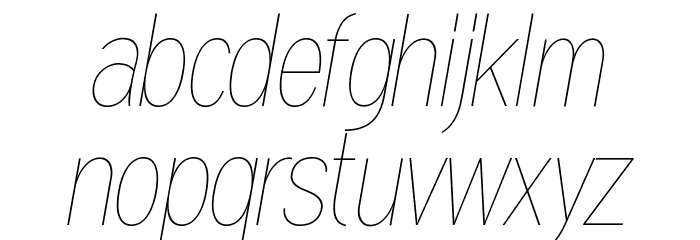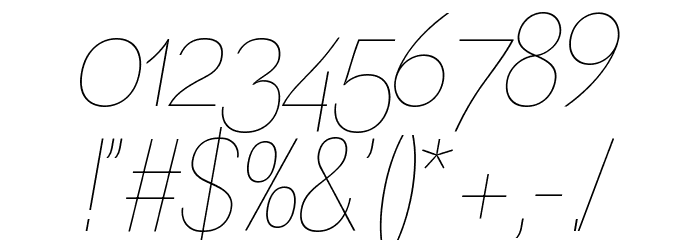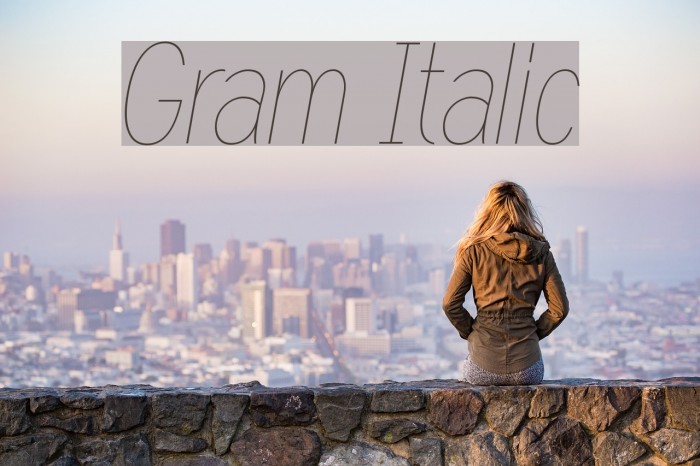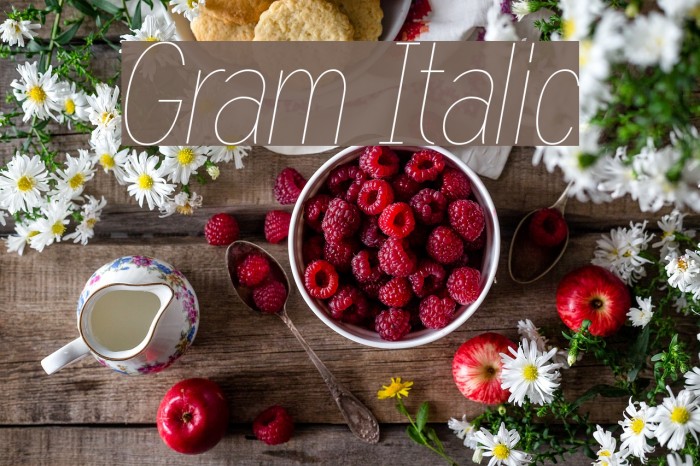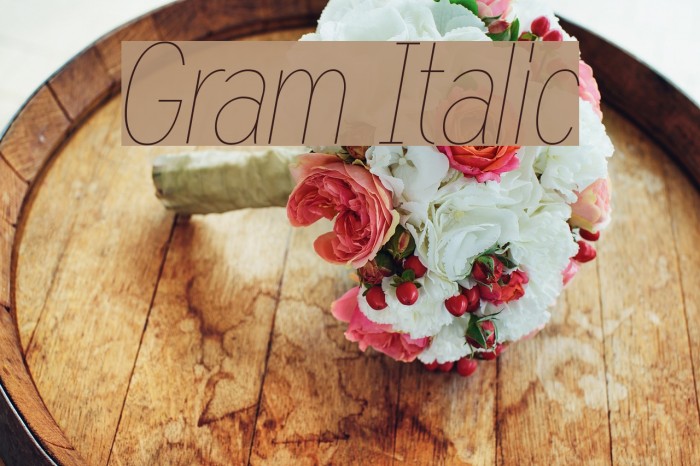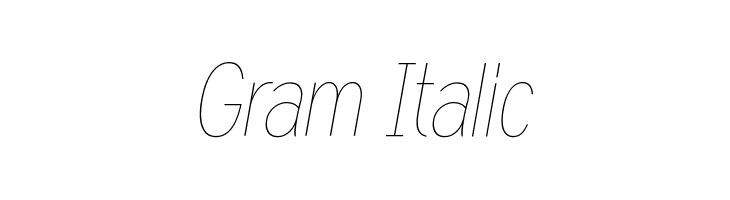
Gram Italic Font
This font features a sleek and modern design with a distinct italic slant, giving it a dynamic and forward-leaning appearance. The characters are thin and elongated, emphasizing elegance and sophistication. The uppercase and lowercase letters maintain a consistent style, with smooth curves and sharp angles that enhance readability. Numbers and special characters are designed to match the overall aesthetic, ensuring a cohesive look across all text elements. The font's minimalistic approach makes it versatile for various applications, while its italic nature adds a touch of flair.
A sleek, modern italic font with thin, elongated characters.
- Proposed Projects: Ideal for fashion magazines, modern branding, elegant invitations, and minimalist web design.
- Category: Sans-Serif
- Weight: Light
- Use Case: Headlines, Logos, Branding